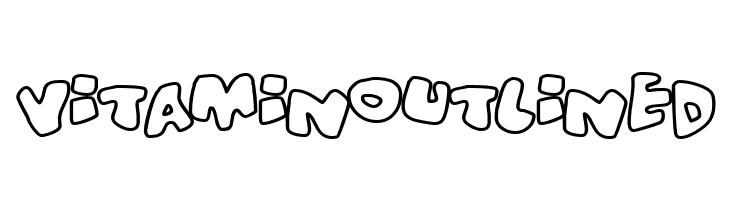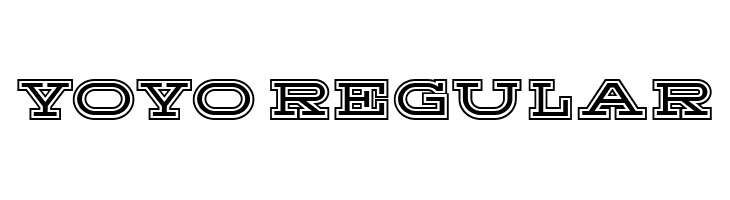
A bold, decorative font with a double-line outline, ideal for striking headlines.
A bold, geometric font with a stencil-like design and strong industrial appeal.
A modern, geometric monospaced font with rounded edges and consistent stroke thickness.
A lively, handwritten script font with fluid, interconnected letters.
A bold, italic, and decorative font with looping, continuous lines.
A playful, outlined font with a cartoonish and lively style.
A sleek, modern sans-serif font with a light, italic style.
A decorative script font with elegant loops and swirls, perfect for artistic designs.
A bold, playful handwritten font with smooth curves and a whimsical style.
A bold, brush-style font with an energetic and artistic feel.